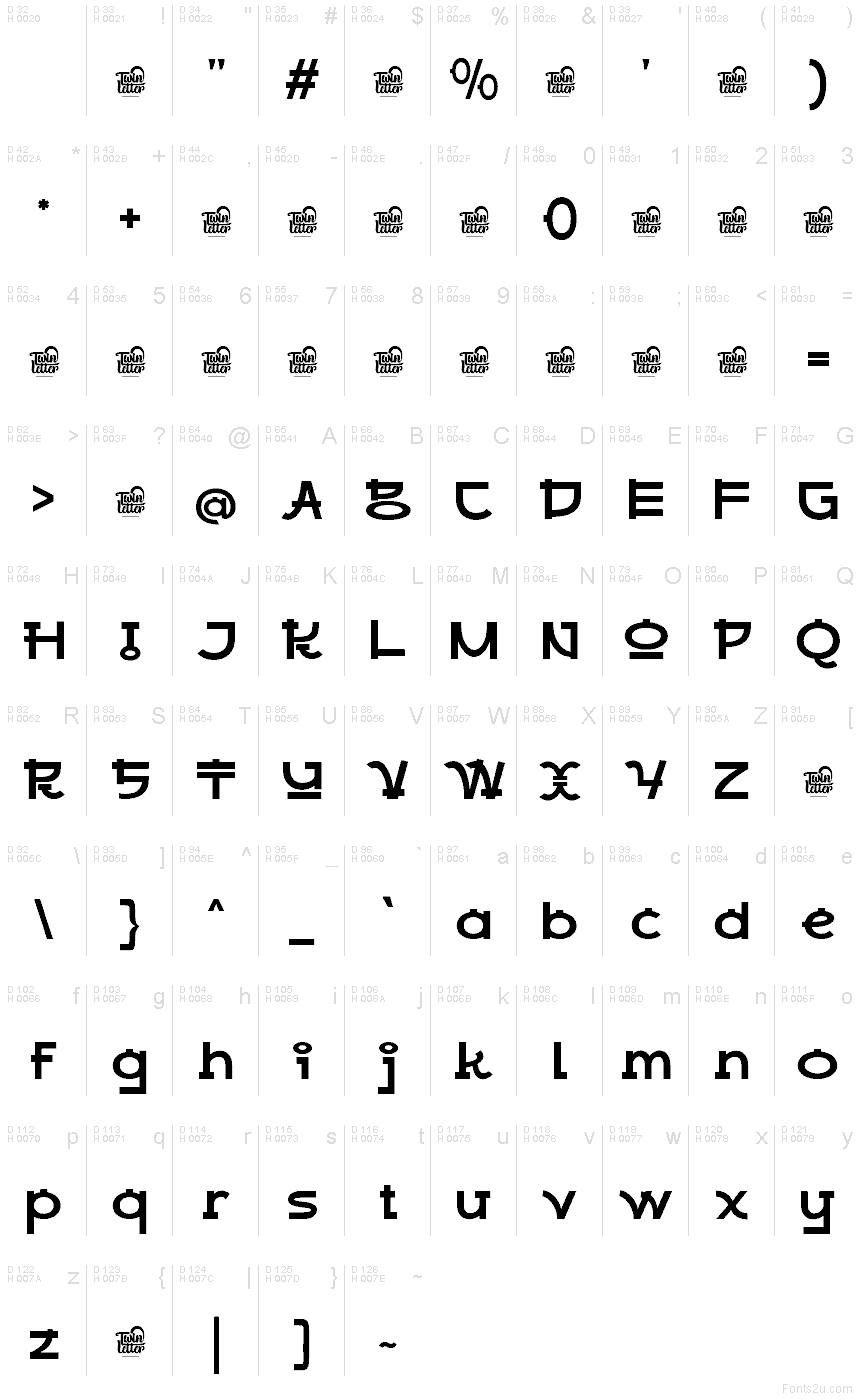
RABOAN Trial Regular
Raboan font by Twinletter is a Korean display font with an expanded width. Its style combines cultural influence with modern visual appeal to create a unique geometric design. Bold shapes make this typeface visually strong and truly innovative.
The free Raboan font makes for the perfect choice for ultra-modern brands, futuristic product advertising campaigns, or bold magazine headlines. Use it in greeting card design, posters, educational projects, product packaging labels, t-shirt prints among other things.